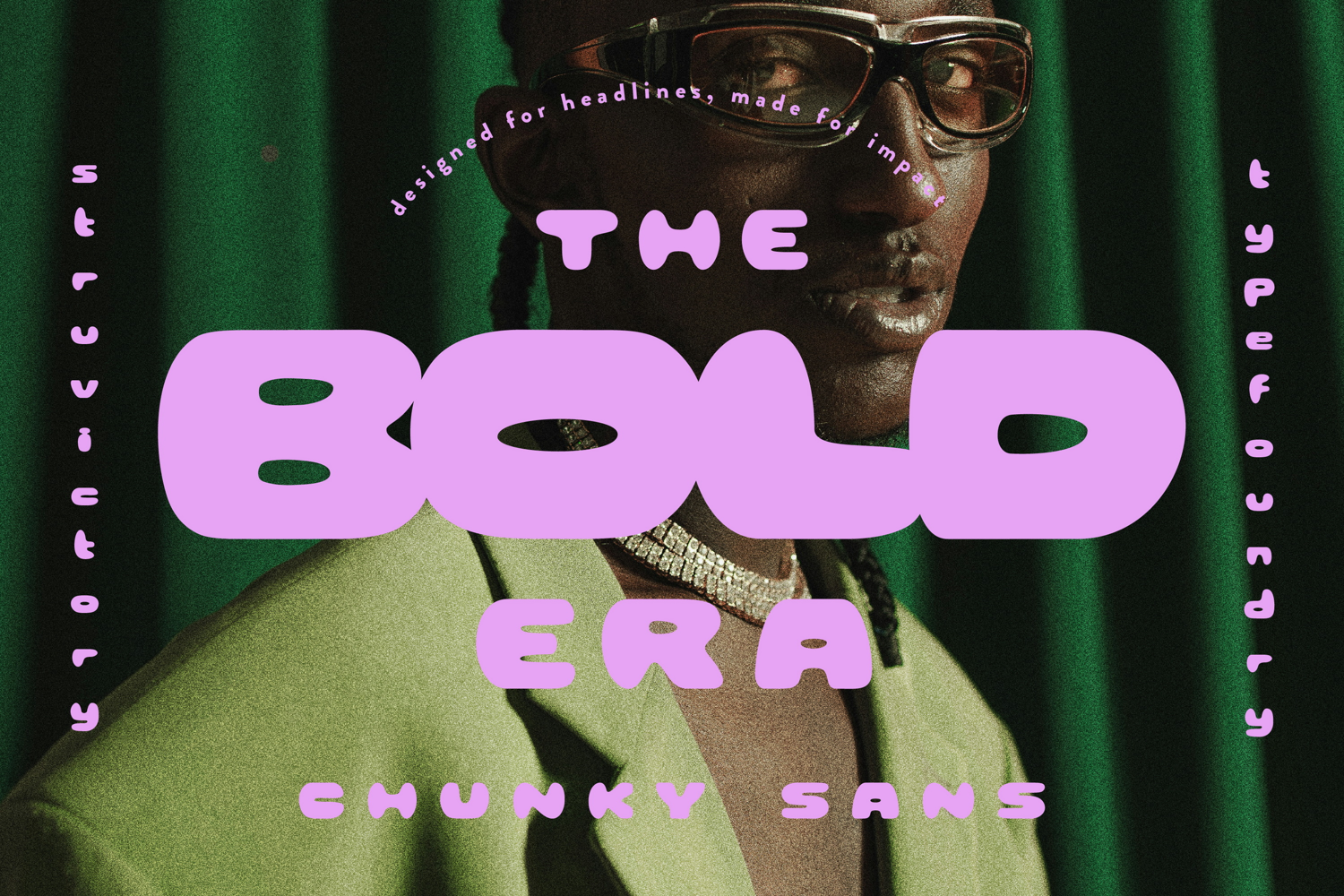
The Bold Era Chunky Vibe Sans Serif
The Bold Era is a chunky sans serif that blends retro nostalgia with a modern, bubbly attitude. With ultra-tight spacing and wide, confident letterforms, it’s designed to make your words feel loud, stylish, and a little bit playful. The soft curves add charm, while the compact rhythm keeps everything punchy and bold. Perfect for posters, branding, merch, album covers, bold headlines, and anything that deserves to be noticed — especially when paired with vibrant colors and vintage-inspired layouts. Try adjusting the letter spacing to create different moods — from packed and punchy to open and breezy.